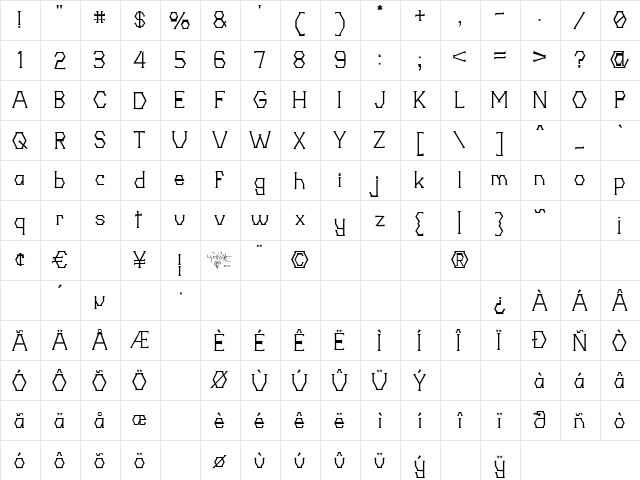
20th Centenary Faux Regular
Design Context for 20th Centenary Faux Typeface
20th Centenary Faux takes a measured approach to typography — its balanced proportions and neutral character make it a reliable workhorse for both digital and print work.